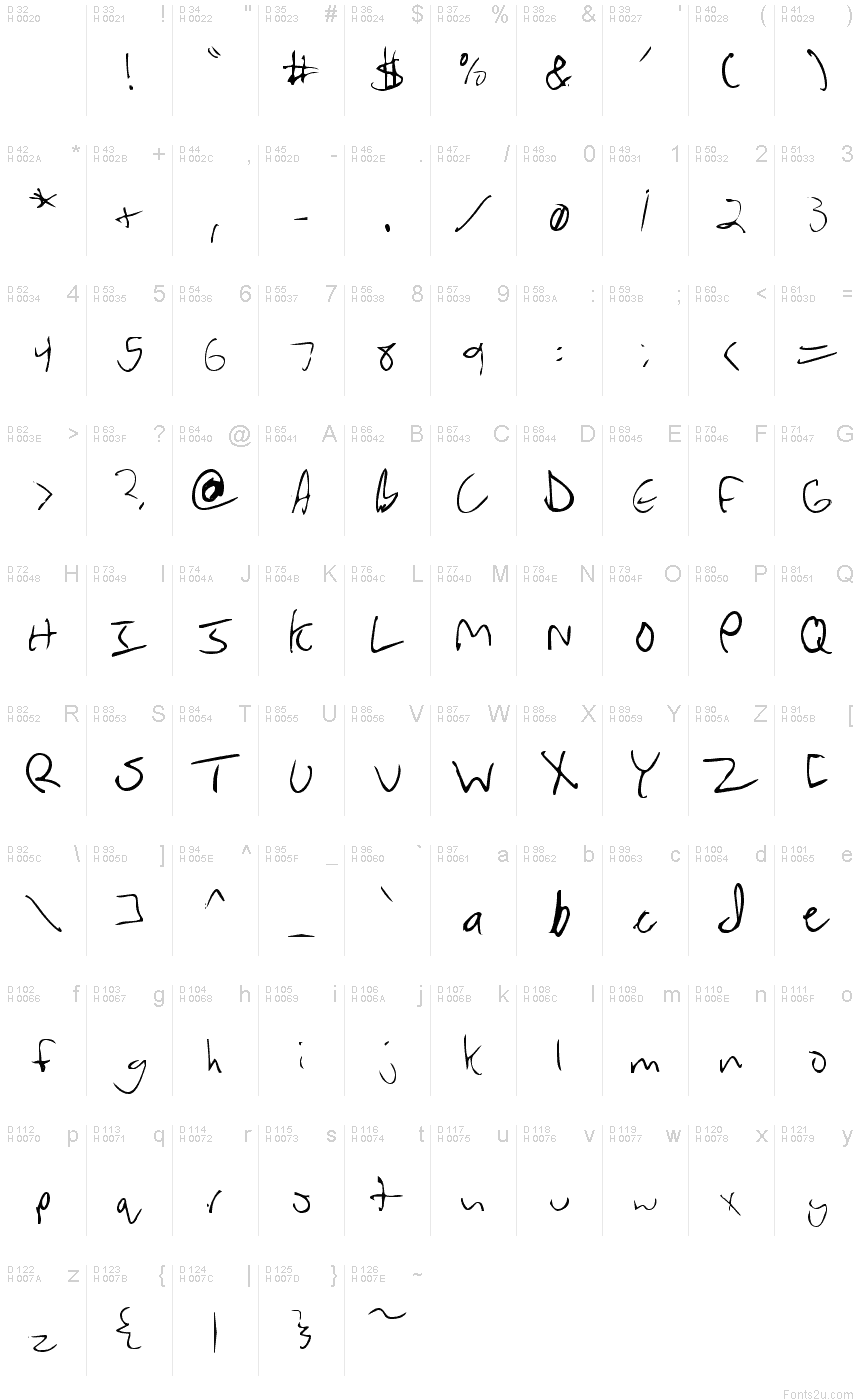
WolfieBoy
WolfieBoy is a rough digitalization of my own, personal, not to be used to forge my signature you creepy evil-minded bastard, why if I ever get my hands on you I'll tear you a new..., handwriting.